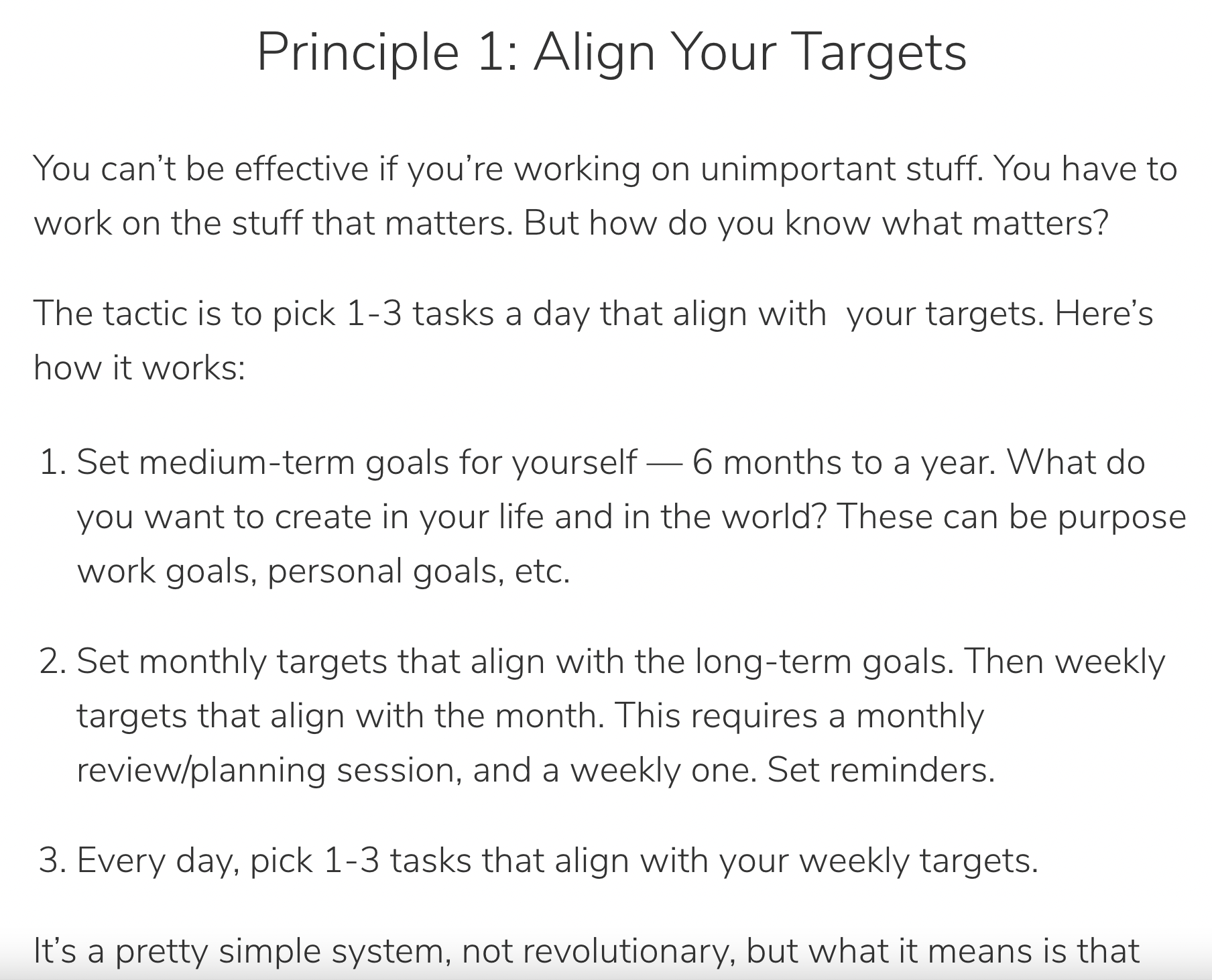
Firefox's developer tools says the font is one of the following:  nunito-sans, -apple-system, BlinkMacSystemFont, segoe ui, Roboto, Oxygen-Sans, Ubuntu, Cantarell, helvetica neue, sans-serif. It doesn't appear to be Nunito Sans, Roboto, or Ubuntu. Not sure how to check the others. Link is below. Thank you, as always, for your help!
It is rendering as Nunito Sans in my browser (Nunito Sans Light, in particular).
But it seems to be an earlier version of the typeface, one where the lowercase L does not have a curved foot.
I noticed also that in the Stylistic Set 2 version of the font, the lowercase L is straight. Those different versions of the font make identifying them a little more challenging!